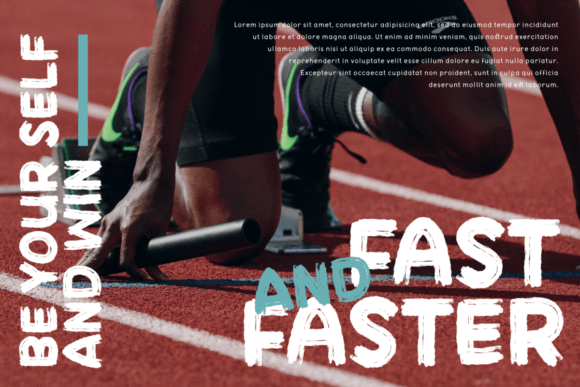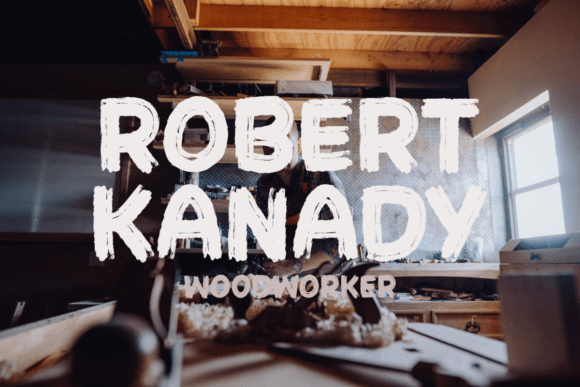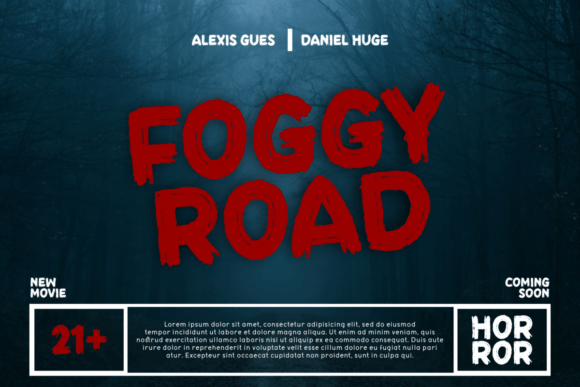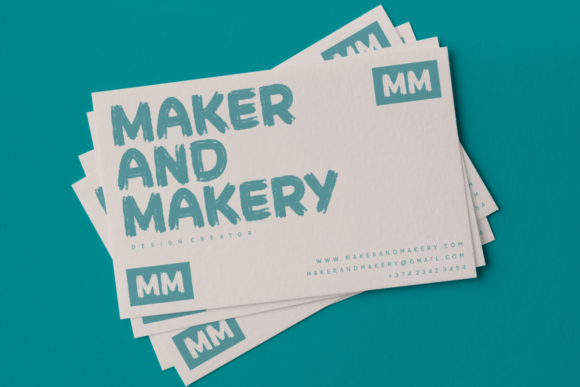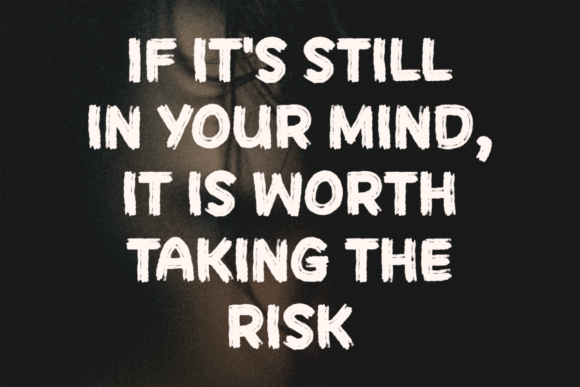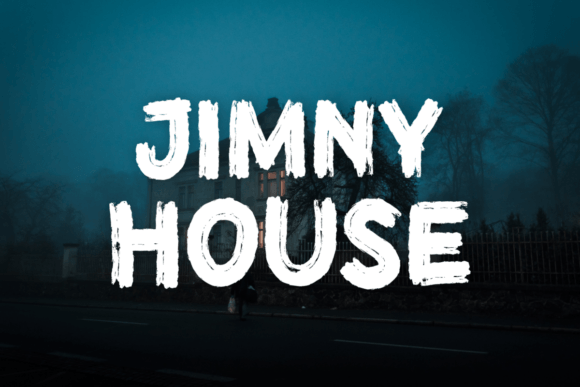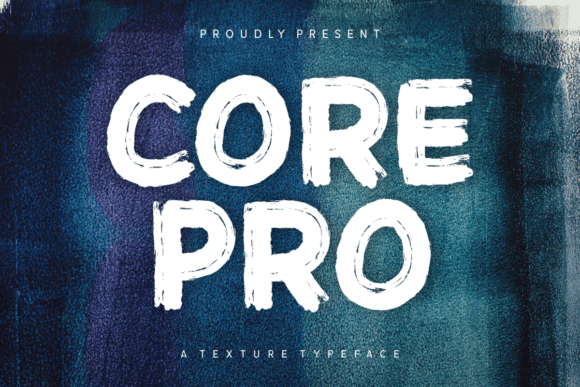
Introducing Core Pro Font: The Ultimate Grungy Display Font for Designers and Crafters
Are you tired of using the same old fonts for your design projects? Look no further than Core Pro Font, a grungy display font with a textured look that’s sure to add a touch of edginess to your creations. With its strong and dynamic characters, Core Pro is perfect for a wide range of design projects, from titles and logos to posters, banners, web graphics, craft projects, and more.
What is Core Pro Font?
Core Pro Font is a unique and versatile typeface that’s designed to make a statement. Its grungy texture and distressed look give it a rugged, industrial feel that’s perfect for designers and crafters who want to add a bit of grit to their work. Whether you’re creating a bold logo, a eye-catching poster, or a stylish web graphic, Core Pro Font is the perfect choice.
Key Features of Core Pro Font
- Grungy Texture: Core Pro Font features a textured look that’s reminiscent of worn, vintage designs. This unique texture adds depth and character to your designs, making them stand out from the crowd.
- Strong and Dynamic Characters: The characters in Core Pro Font are bold and dynamic, making them perfect for titles, headings, and other design elements that need to make a statement.
- Versatile: Core Pro Font is incredibly versatile, and can be used for a wide range of design projects, from print materials like posters and flyers to digital designs like web graphics and social media posts.
- Easy to Read: Despite its grungy texture, Core Pro Font is surprisingly easy to read, making it perfect for designs that need to communicate a message quickly and effectively.
Uses for Core Pro Font
So, what can you use Core Pro Font for? The possibilities are endless! Here are a few ideas to get you started:
- Logos and Branding: Use Core Pro Font to create a bold, eye-catching logo that sets your brand apart from the competition.
- Posters and Flyers: Core Pro Font is perfect for creating attention-grabbing posters and flyers that need to stand out in a crowded space.
- Web Graphics: Add a touch of edginess to your web graphics with Core Pro Font, perfect for creating bold, eye-catching headers and titles.
- Craft Projects: Core Pro Font is also perfect for crafters who want to add a personal touch to their projects. Use it to create custom titles, labels, and other design elements for your scrapbooking, card making, and other craft projects.
- Banners and Signs: Use Core Pro Font to create bold, eye-catching banners and signs that are sure to grab attention.
Tips for Using Core Pro Font
Here are a few tips for getting the most out of Core Pro Font:
- Experiment with Different Sizes: Core Pro Font looks great in a variety of sizes, from small titles to large headings. Experiment with different sizes to find the one that works best for your design.
- Pair it with Other Fonts: Core Pro Font pairs well with a variety of other fonts, from clean and simple sans serifs to bold and decorative scripts. Experiment with different pairings to find the one that works best for your design.
- Use it to Add Contrast: Core Pro Font’s grungy texture and bold characters make it perfect for adding contrast to your designs. Use it to create visual interest and draw attention to important design elements.
Core Pro Font is a versatile and powerful typeface that’s perfect for designers and crafters who want to add a touch of edginess to their work. With its grungy texture, strong and dynamic characters, and versatility, Core Pro Font is the perfect choice for a wide range of design projects. Whether you’re creating a bold logo, a eye-catching poster, or a stylish web graphic, Core Pro Font is sure to make a statement.